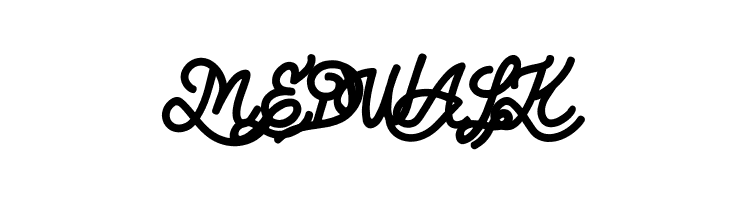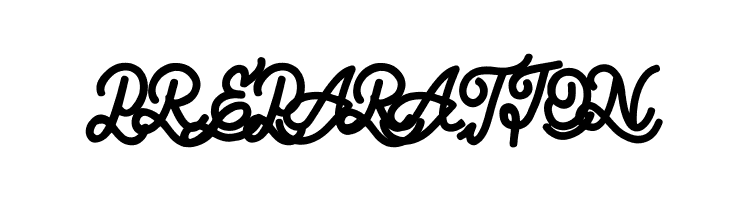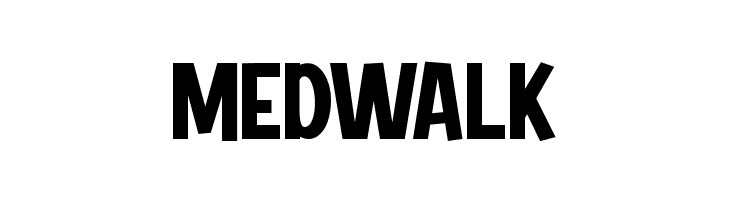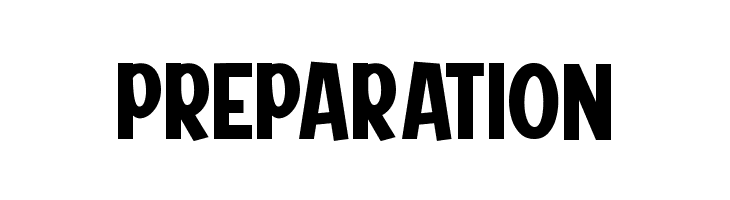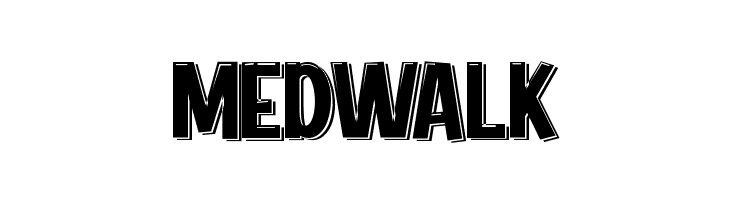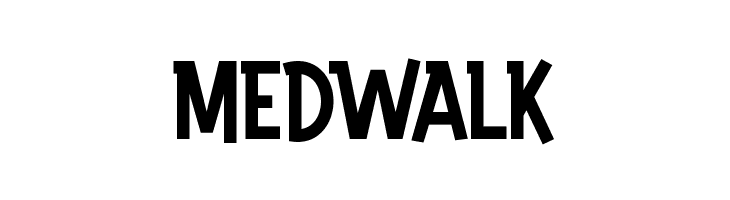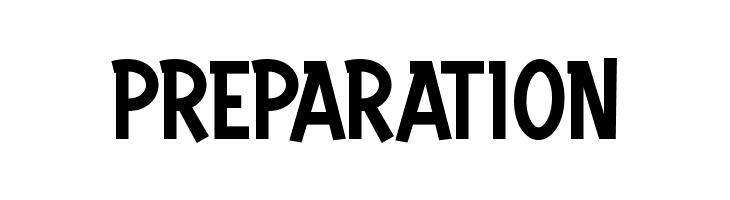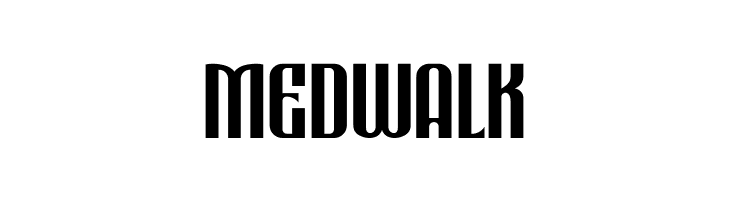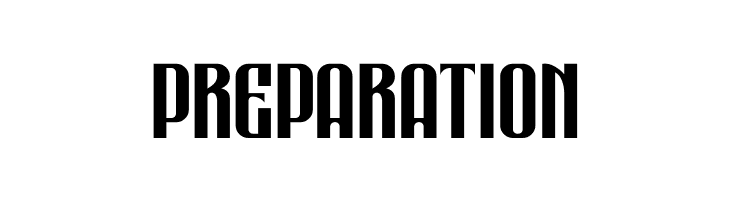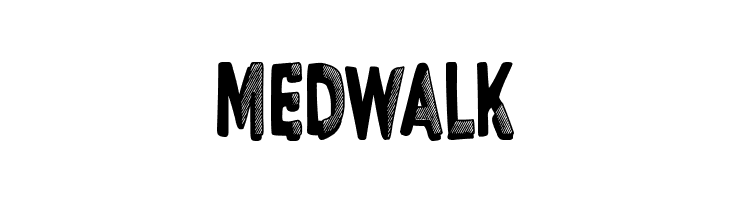
A bold, brush script font with dynamic, hand-painted strokes.
A bold, brush-style font with dynamic, hand-drawn characteristics.
An elegant, cursive font with flowing, interconnected letters and ornate flourishes.
A dynamic and flowing script font with elegant, cursive letterforms.
A playful, narrow font with moderate contrast and unique character designs.
A bold, modern sans-serif font with excellent readability and versatility.
A modern, bold, and italicized typeface with medium contrast and sleek design.
A modern, geometric sans-serif font with clean lines and balanced spacing.
A sleek, modern italic font with thin strokes and a dynamic appearance.
A modern, italic sans-serif font with clean lines and balanced spacing.
A modern, light sans-serif font with clean lines and excellent readability.
A sleek, modern, light italic sans-serif font with a clean and elegant design.
A modern, geometric sans-serif typeface with balanced proportions and consistent stroke widths.
A modern, italic sans-serif font with medium weight and clean lines.
A modern, geometric sans-serif typeface with medium contrast and excellent readability.
A modern, geometric sans-serif font with a clean and professional look.
A modern, semi-bold italic sans-serif font with smooth strokes and medium contrast.
A dynamic, edgy font with sharp, jagged edges and a hand-drawn style.
A bold, brush-style font with an energetic, hand-painted look.
A bold, playful handwritten font with smooth, rounded strokes.
A bold, graffiti-inspired font with sharp lines and dynamic flourishes.
A playful, bold font with a hand-drawn, rounded style.
A bold, angular font with a geometric and industrial design.
A playful, handwritten font with tall, narrow letters and a modern feel.
A bold, rustic font with a textured, vintage appearance.
A bold, decorative font with a medieval-inspired aesthetic.
A bold, shadowed font with decorative flair and three-dimensional appearance.
A playful and casual handwritten font with fluid, organic letterforms.
A playful, handwritten font with fluid, curvy letterforms.
An elegant script font with flowing, ornate characters and graceful flourishes.
A graceful script font with flowing, cursive letters and elegant loops.
A playful, casual handwritten font with smooth, flowing curves.
A dynamic and fluid script font with elegant, flowing letterforms.